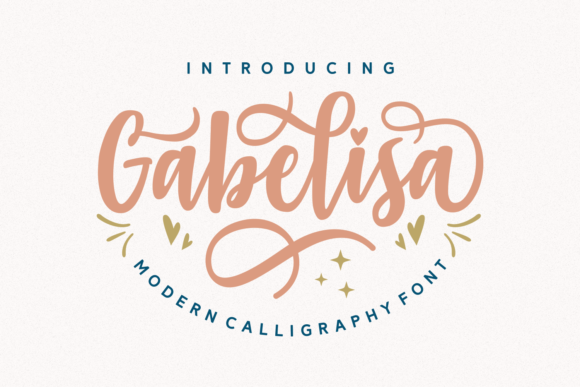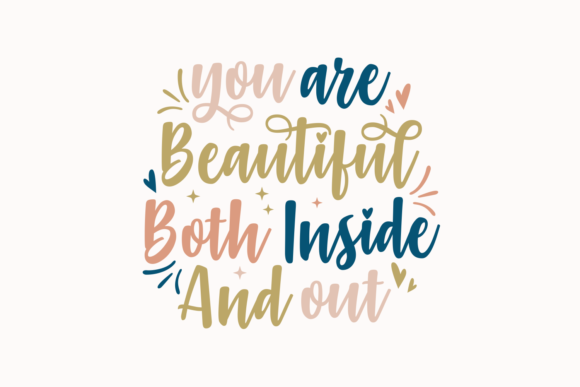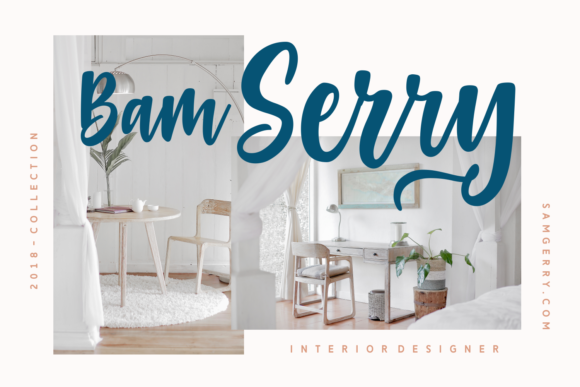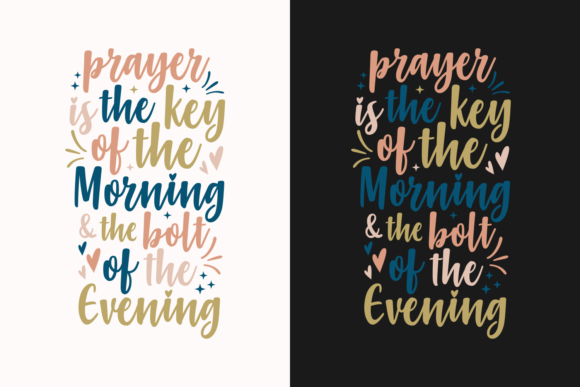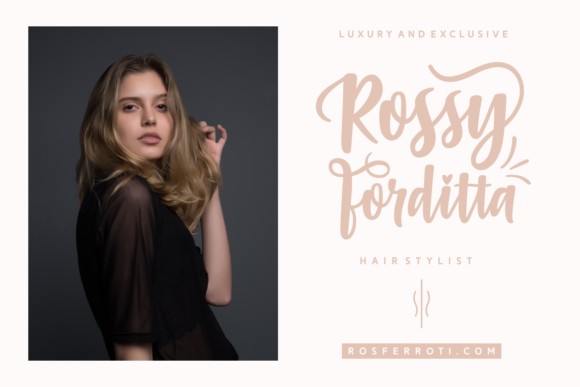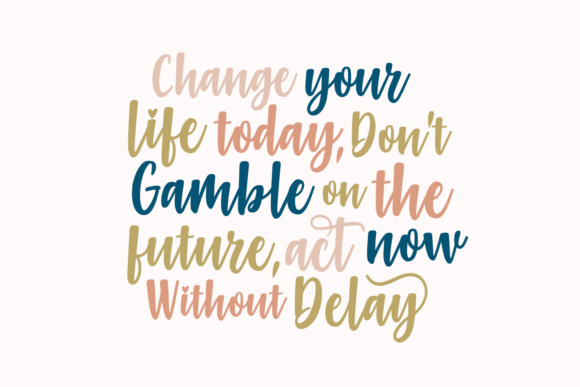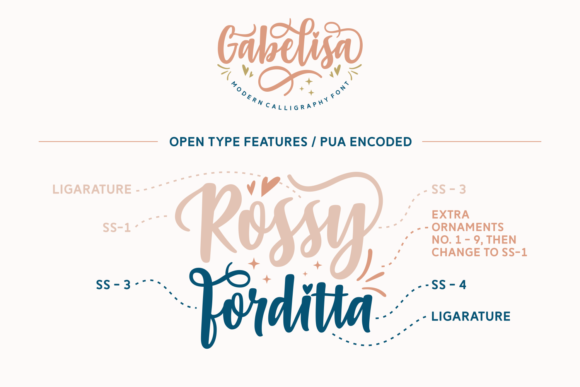
Gabelisa Font
About Gabelisa Font
Gabelisa is a jaw-droppingly gorgeous display font that will give your designs a luxurious hand-lettered feel. This swashy, delicate script font comes with tons of stylistic alternates so you can create compelling and unique designs no matter the project at hand. This is a versatile font that works in modern and throwback designs!